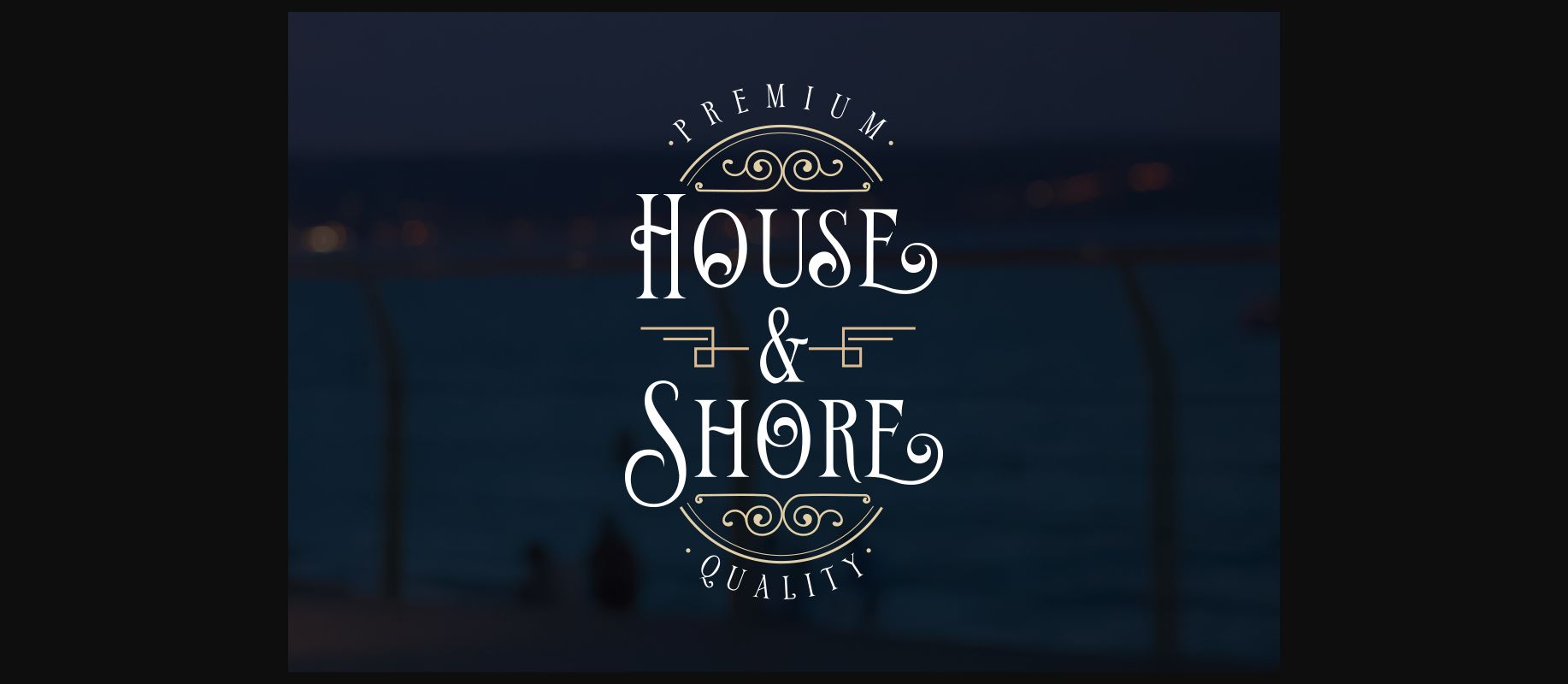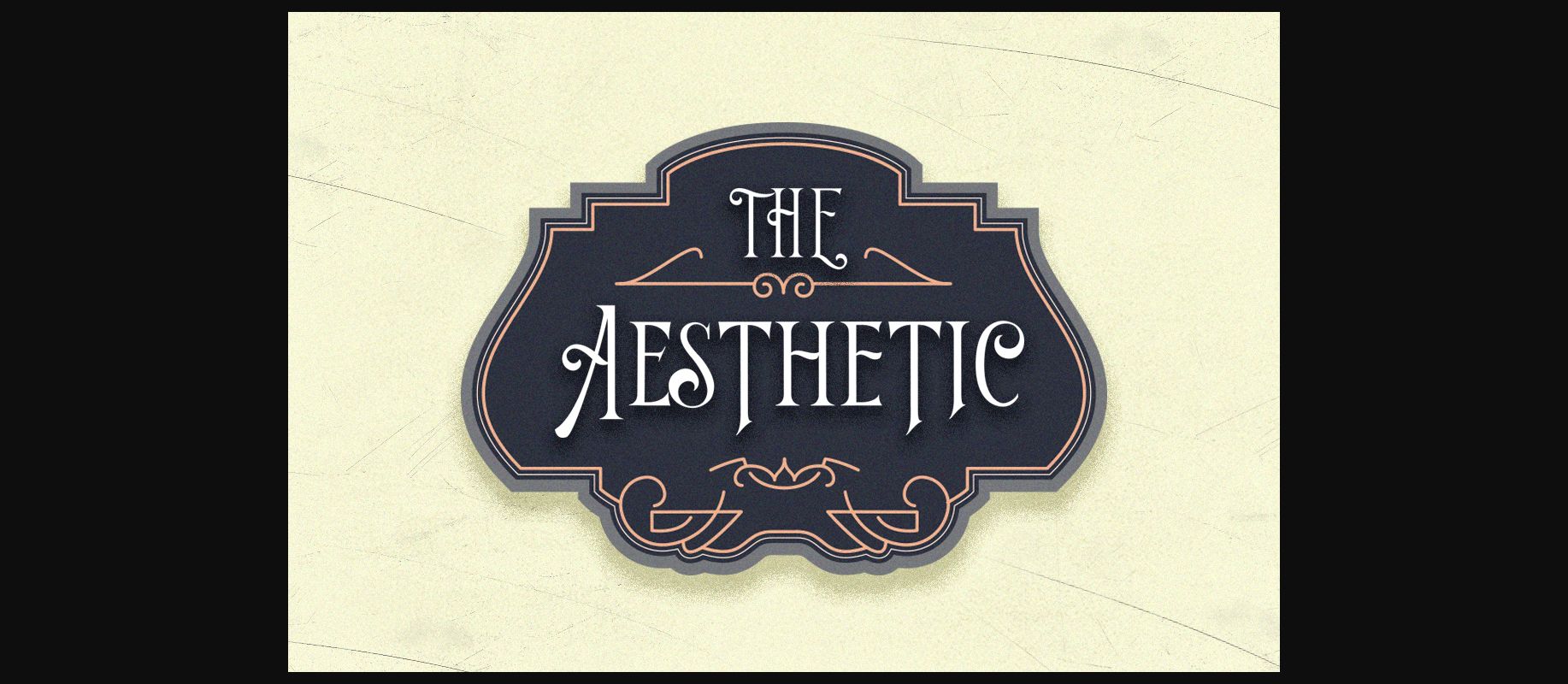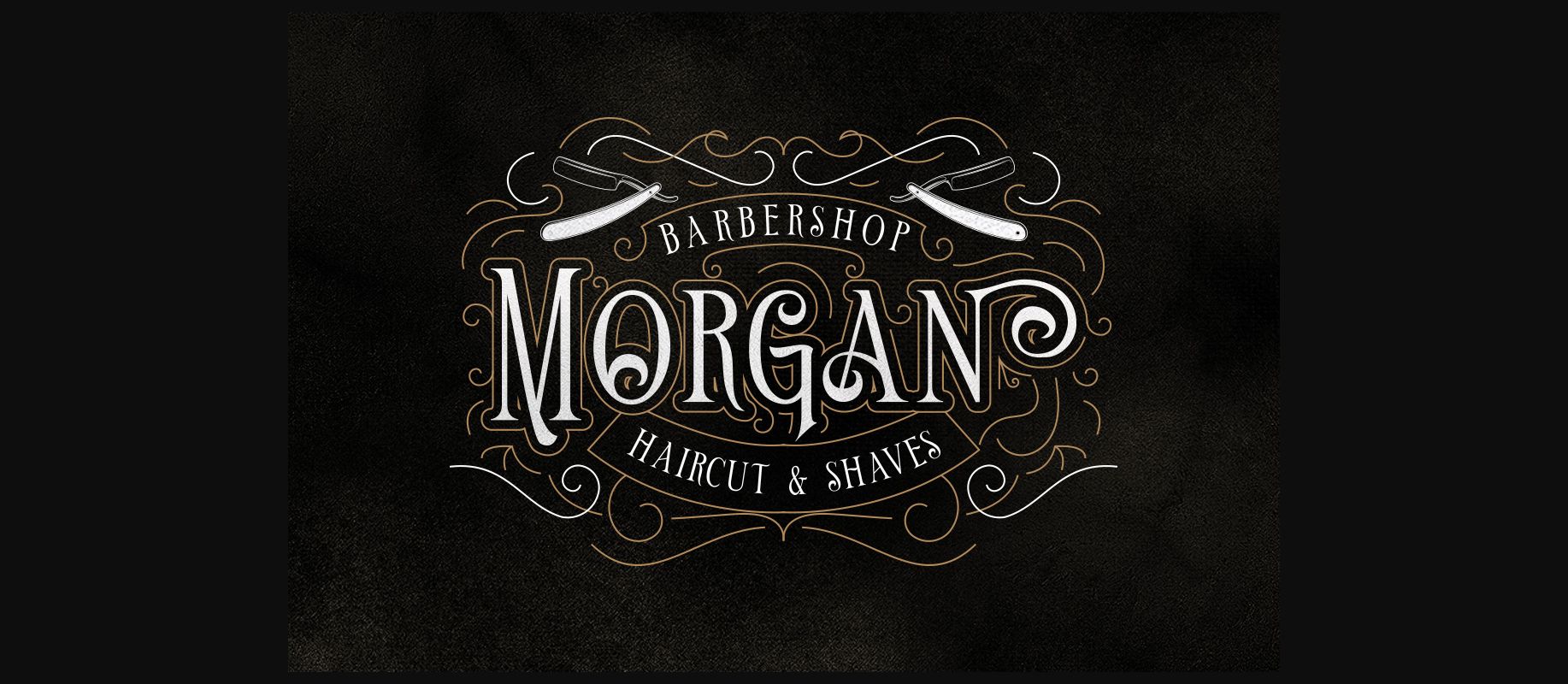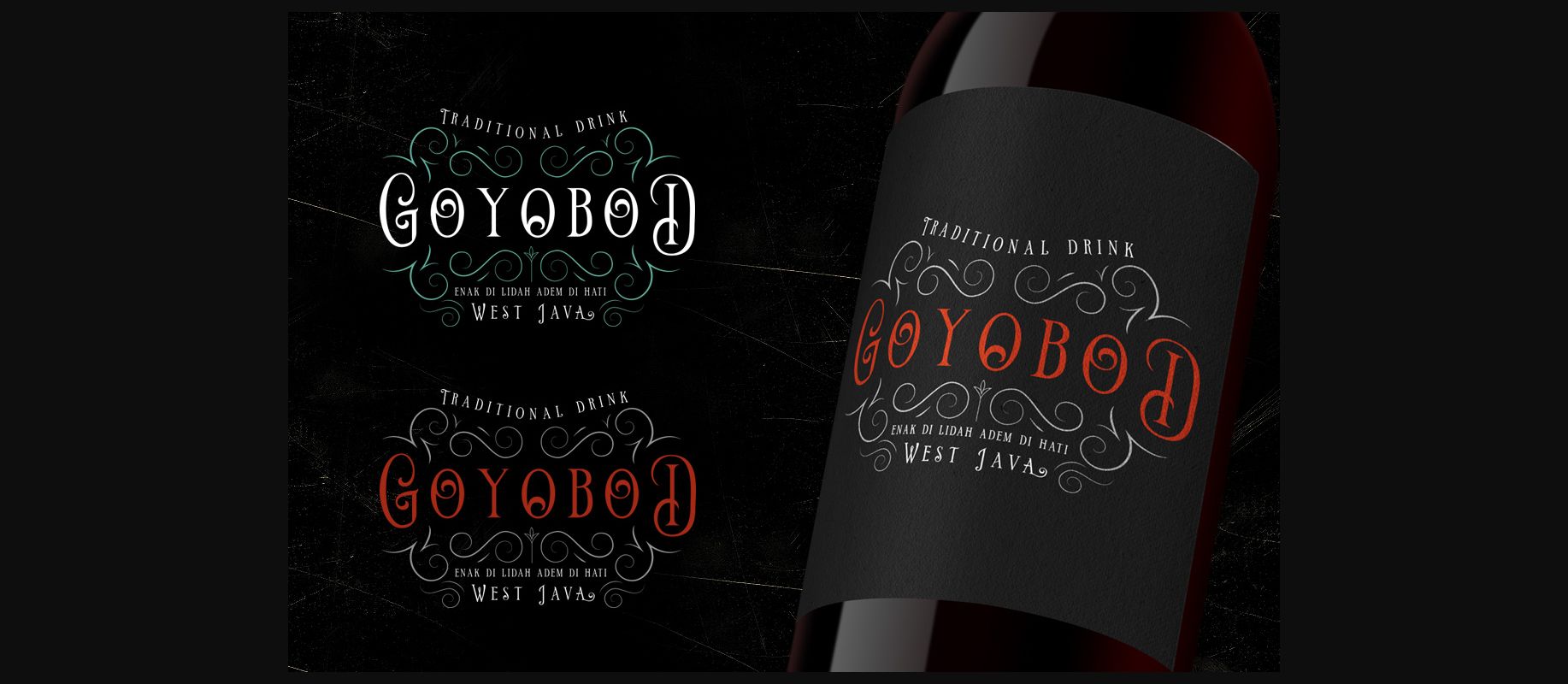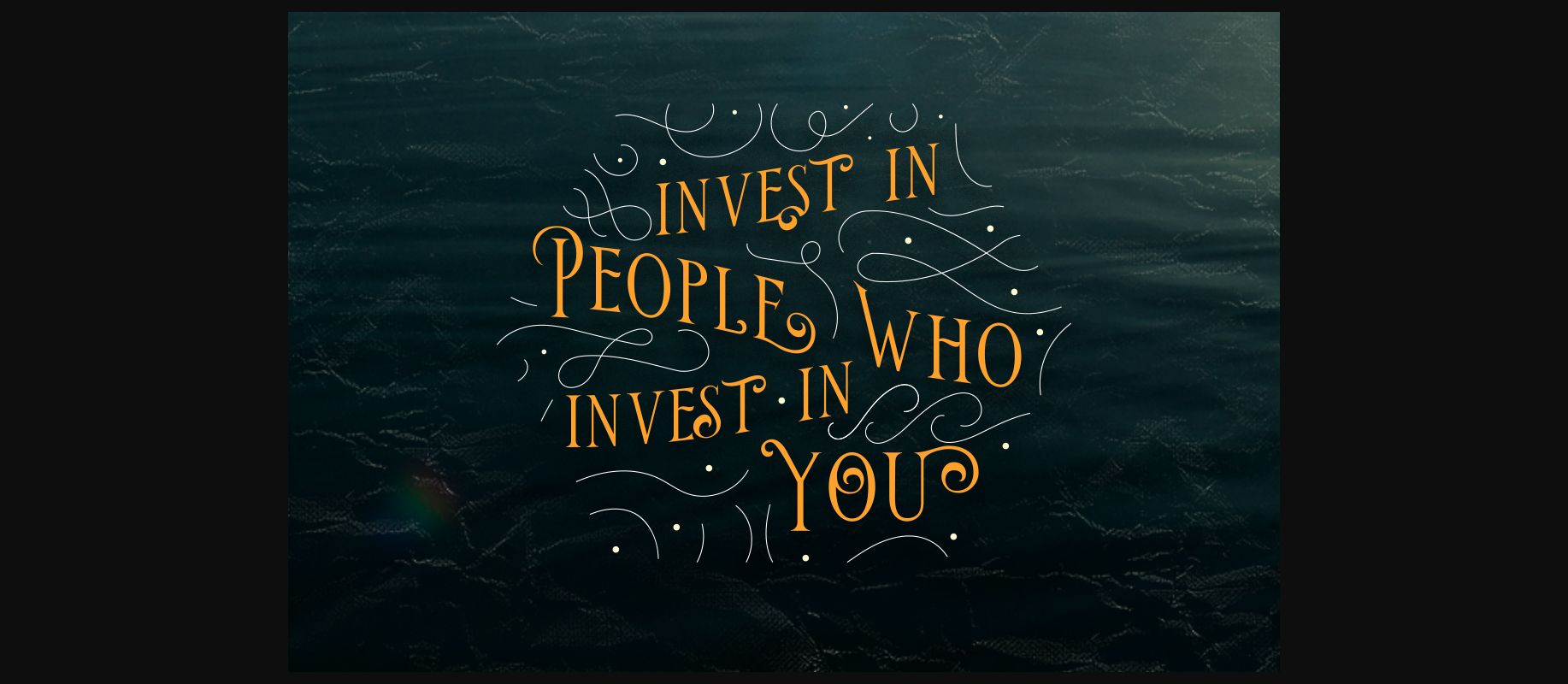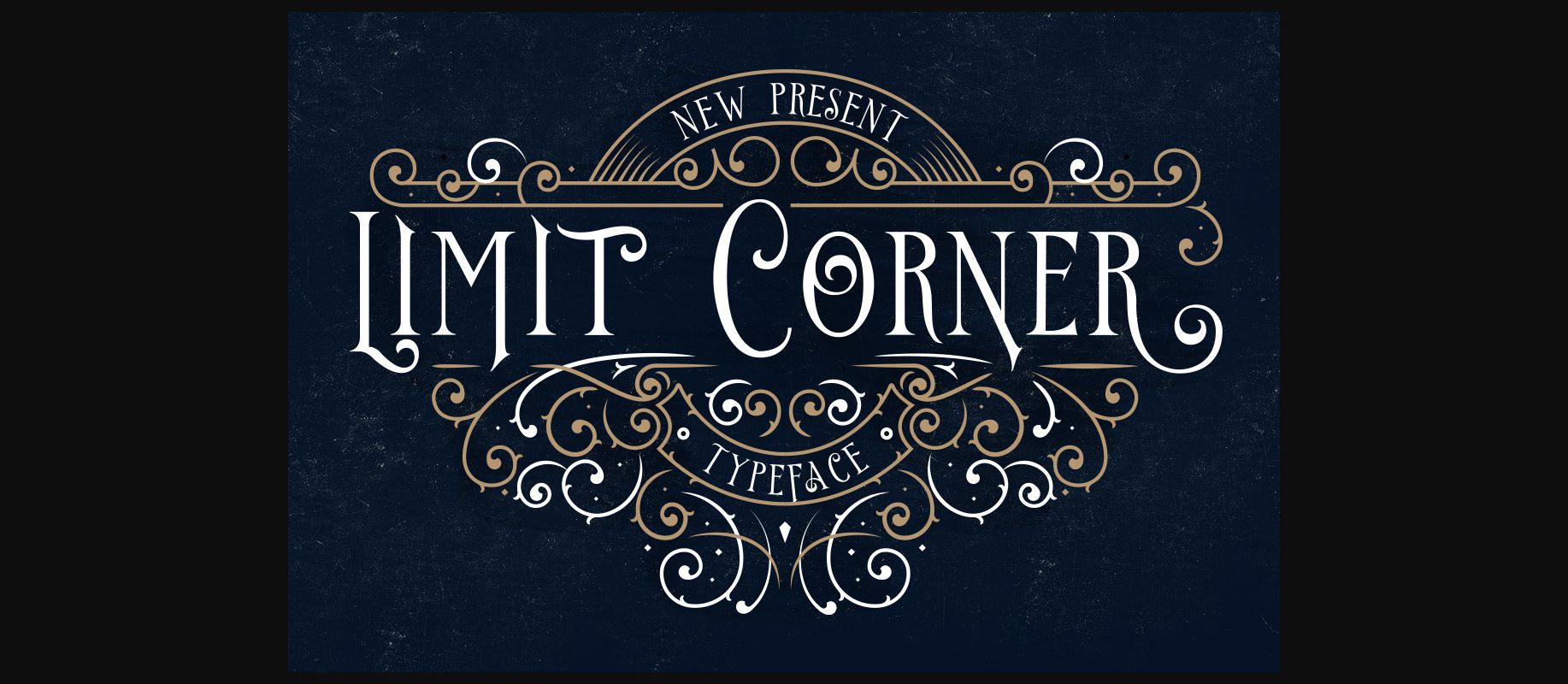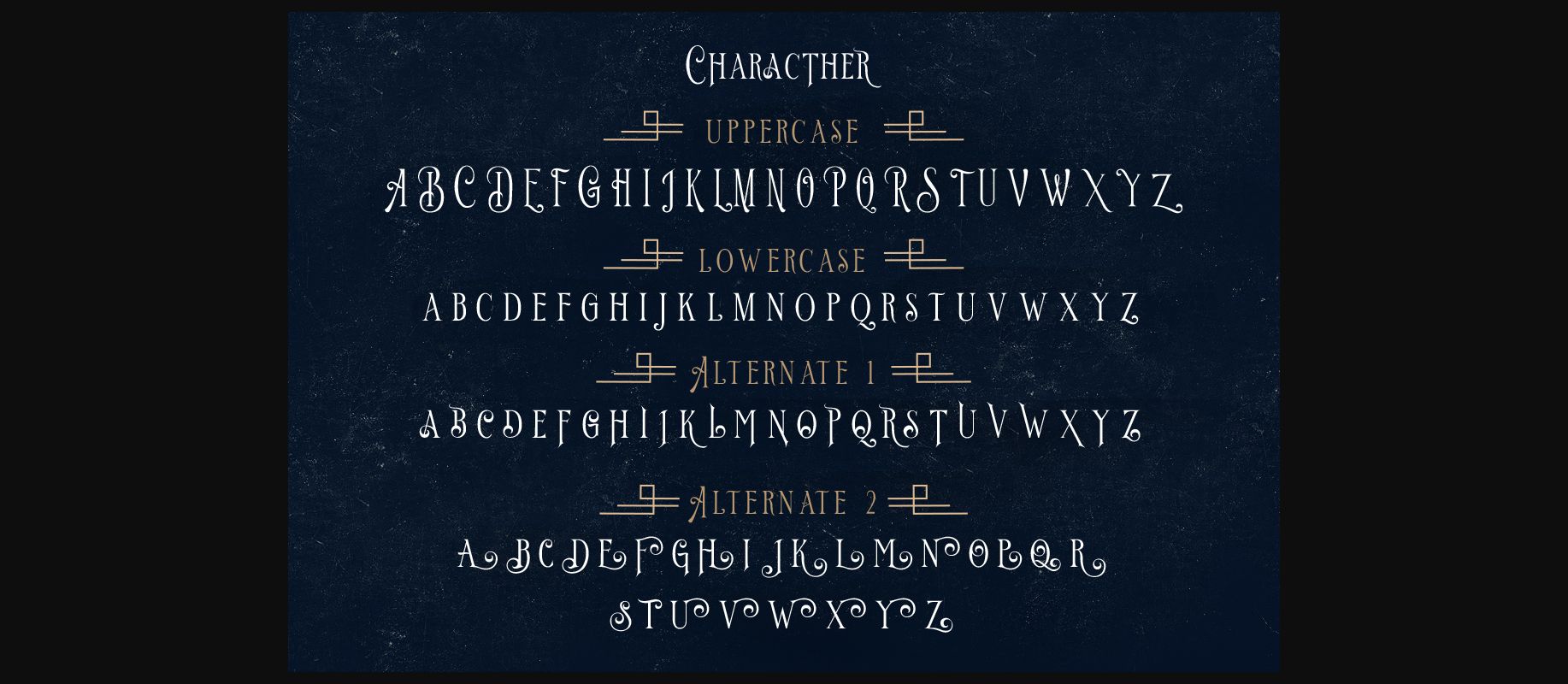
Limit Corner Font
About Limit Corner Font
Limit Corner is a new serif display typeface that encompasses the best of hip and retro designs. This font was inspired by Victorian style, and includes stylistic alternatives and extras for a stunningly refined design.